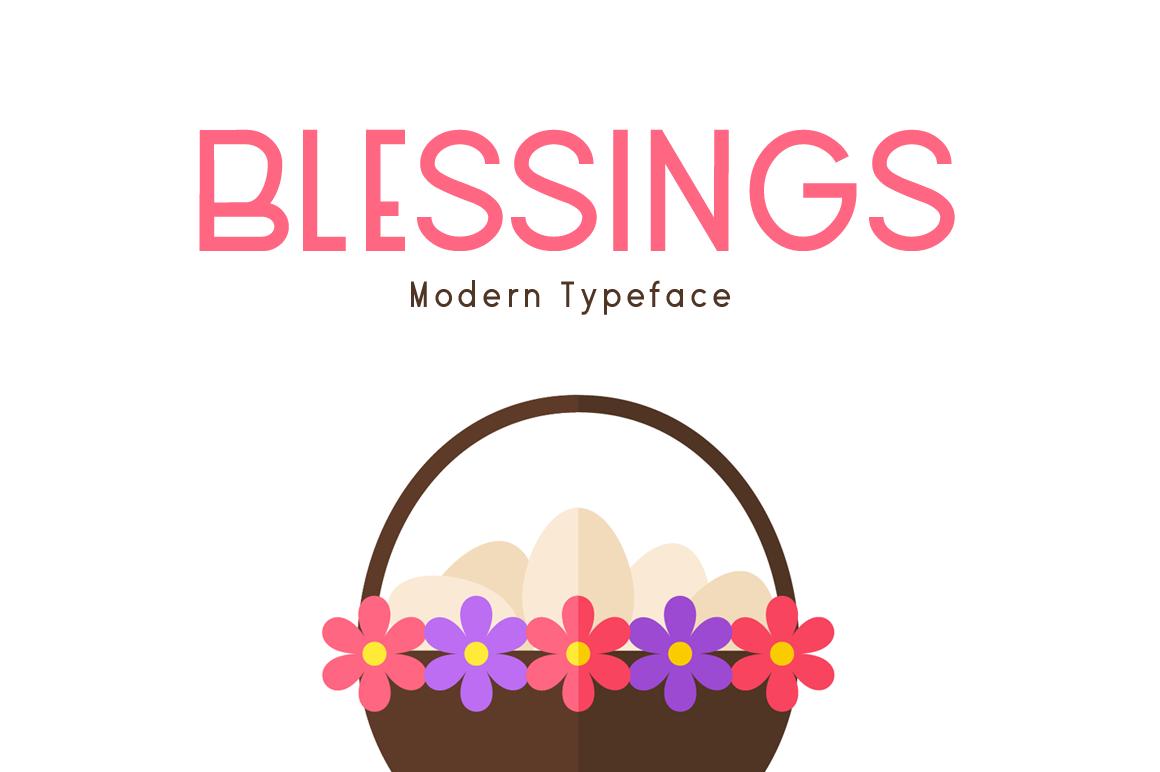
Blessings Font Description
Blessings is a distinct, elegant display font that blends traditional influences into a contemporary aesthetic. Its well balanced Latin details contain distinctive contrasts. Use Blessings to achieve an exquisite, yet subtle look and maximum versatility.